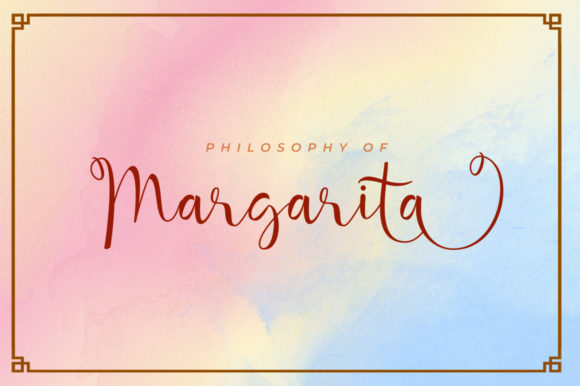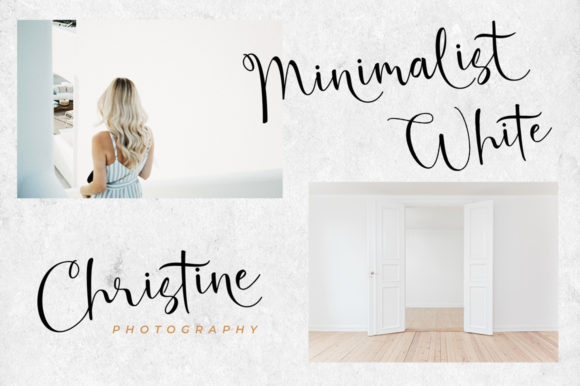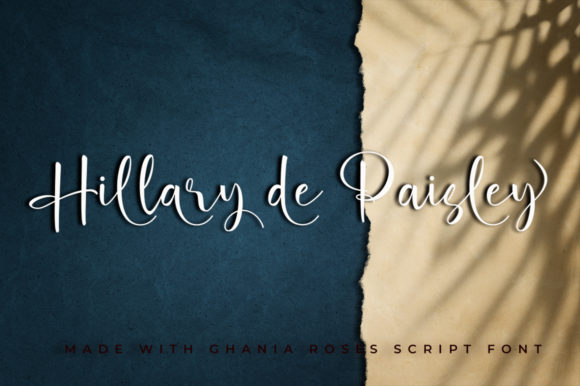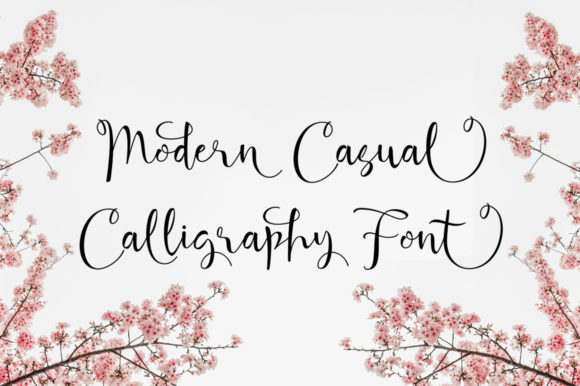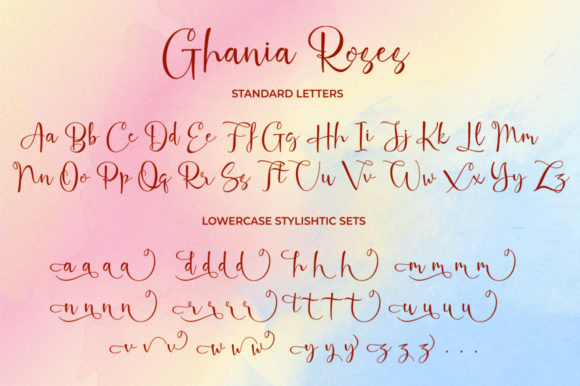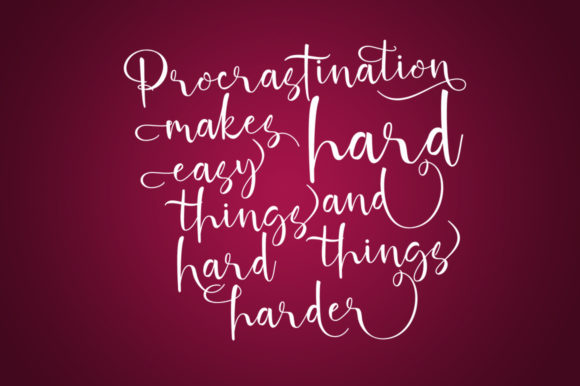
The Sweet Charm of Hand- Lettered Script: Unveiling the Ghania Roses Font
Do you remember the feeling of discovering a new font that instantly sparks creativity? For many designers, it’s a moment of pure joy, where the possibilities seem endless and the excitement is palpable. That’s exactly what happens when you come across the Ghania Roses Font – a sweet, soft hand-lettered script that’s sure to capture your heart.
This beautiful font is perfect for creating stunning calligraphy art, with its playful rounded characters making it an ideal choice for designers who want to add a touch of elegance and sophistication to their work. With PUA encoded swashes, you can easily add a decorative touch to your designs, making it a valuable asset for any creative project.
- Font Family: Ghania Roses
- Unique Characteristics: Delicate, hand-drawn design with intricate floral elements, perfect for creating elegant and sophisticated typography
Ghania Roses Font Review
Overall, I think the Ghania Roses font is a beautiful addition to any design project. ✨ The intricate details and soft curves make it perfect for creating a romantic or elegant atmosphere.
- ✨ Unique and eye-catching design that sets it apart from more common fonts
- ✨ Excellent for use in invitations, wedding designs, and other romantic-themed projects
- ✨ Comes in a variety of weights and styles to suit different design needs
- ⚠️ The font may be too ornate for use in simple or modern designs
- ⚠️ Some characters may not be easily readable, especially in smaller sizes
- ⚠️ May not be suitable for use in body text due to its elaborate design
Overall, I would recommend the Ghania Roses font for designers looking to add a touch of elegance and sophistication to their projects. Just be mindful of its limitations and use it judiciously to avoid overwhelming your design.
Tips for Getting the Most Out of Ghania Roses Font
For the best results, use Ghania Roses Font in a design that features a mix of elegance and whimsy. This font is perfect for wedding invitations, baby shower decorations, and other events that require a touch of sophistication.
Ghania Roses Font is ideal for:
- Wedding invitations and decorations
- Baby shower invitations and decorations
- Event invitations and signage
- Personalized gifts and stationery